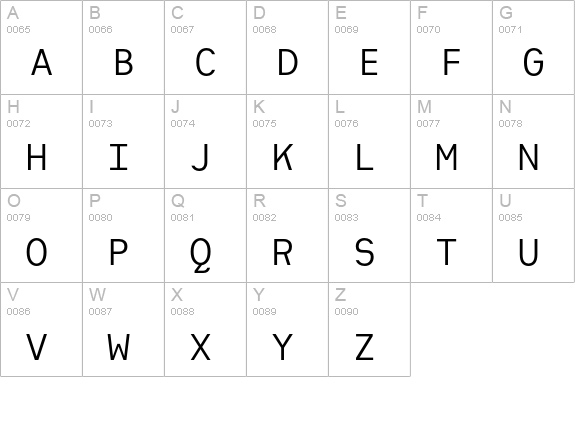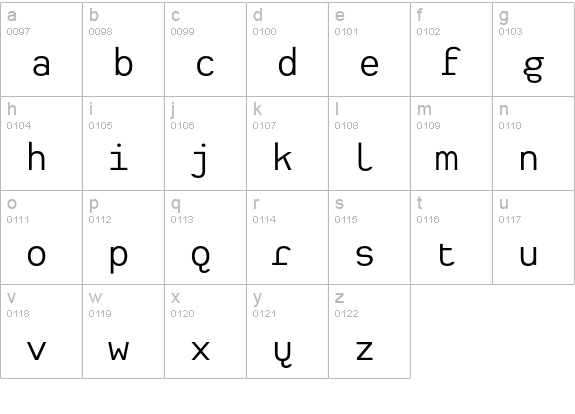
Heimat Mono Regular Font Details
Heimat Mono Regular is the standard, neutral variant in the Heimat typeface family \xE2\x80\x94 well suited to general body text, paragraphs, and standard typographic work.
Heimat Mono Regular font is a versatile and modern typeface that combines simplicity with elegance. Its clean lines and balanced proportions make it perfect for a wide range of design projects, from branding to editorial design. The mono-spaced characters give it a unique and distinctive look that sets it apart from other fonts. One of the best things about Heimat Mono Regular font is that it is completely free to download at FontsMarket.com. This means that you can use it in your projects without any restrictions or limitations. Whether you're a graphic designer, web developer, or just looking to spice up your personal projects, Heimat Mono Regular font is a fantastic choice that won't cost you a thing. Download it today and start creating stunning designs with this beautiful and versatile typeface.